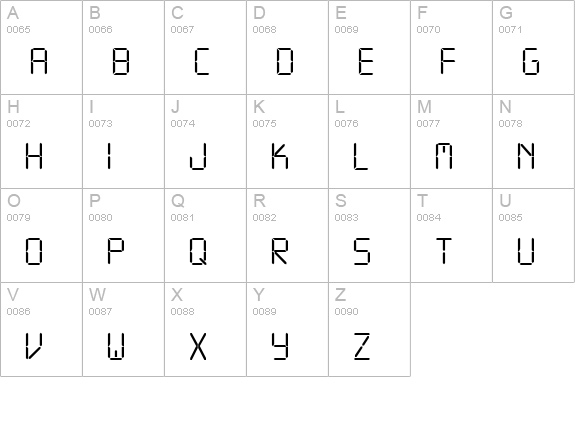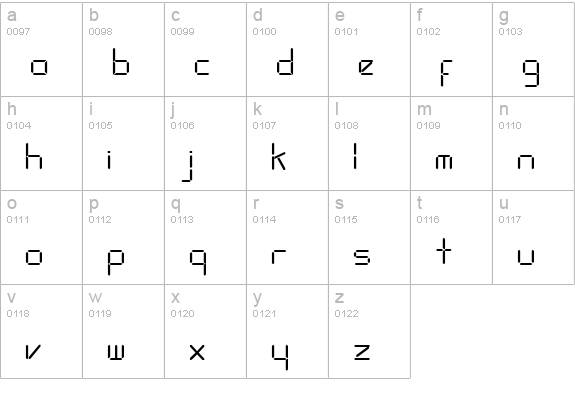
L Regular Font Details
L Regular is the standard, neutral variant in the L typeface family \xE2\x80\x94 well suited to general body text, paragraphs, and standard typographic work.
L Regular font is a modern and elegant typeface that is perfect for adding a touch of sophistication to any design project. With its clean lines and balanced proportions, this font is both versatile and easy to read. Whether you're creating a logo, designing a website, or crafting a stunning presentation, L Regular font will make your text stand out. What sets L Regular font apart is that it is completely free. That's right, you can download and use this font without any cost or restrictions. It's a fantastic option for designers and creatives who want to elevate their work without breaking the bank. Downloading L Regular font is a breeze. Simply head over to FontsMarket.com, where you can find a vast selection of fonts, including L Regular. Once you've found the font, click the download button, and it will be yours to use in any personal or commercial project. So why wait? Enhance your designs today with L Regular font. It's the perfect combination of style, readability, and affordability. Don't miss out on this incredible opportunity to access a high-quality font for free. Visit FontsMarket.com now to get started.